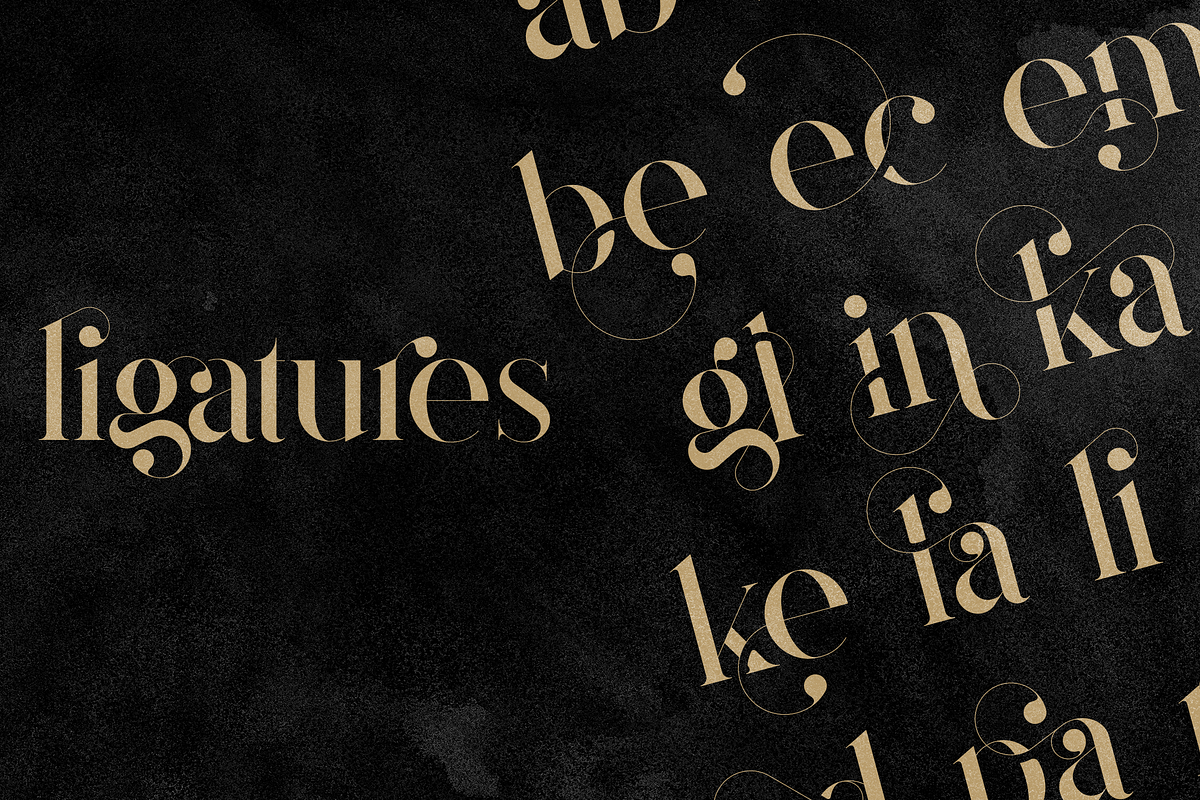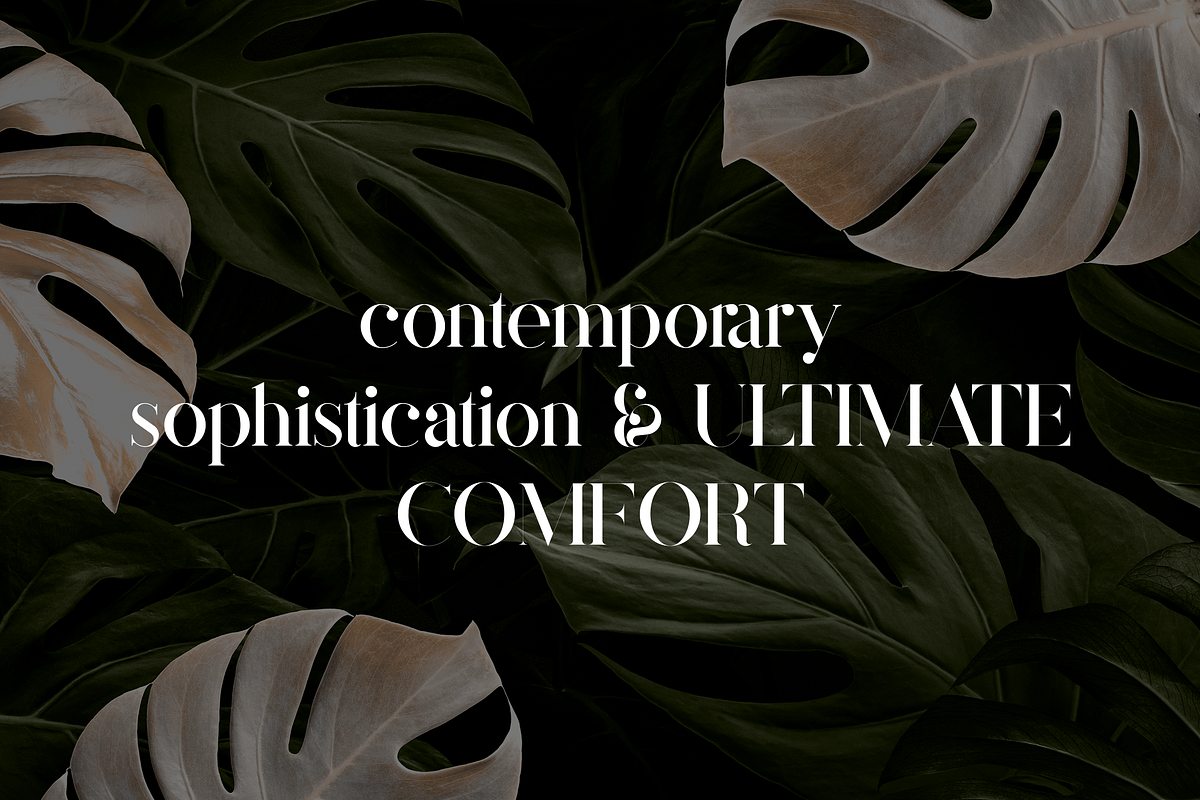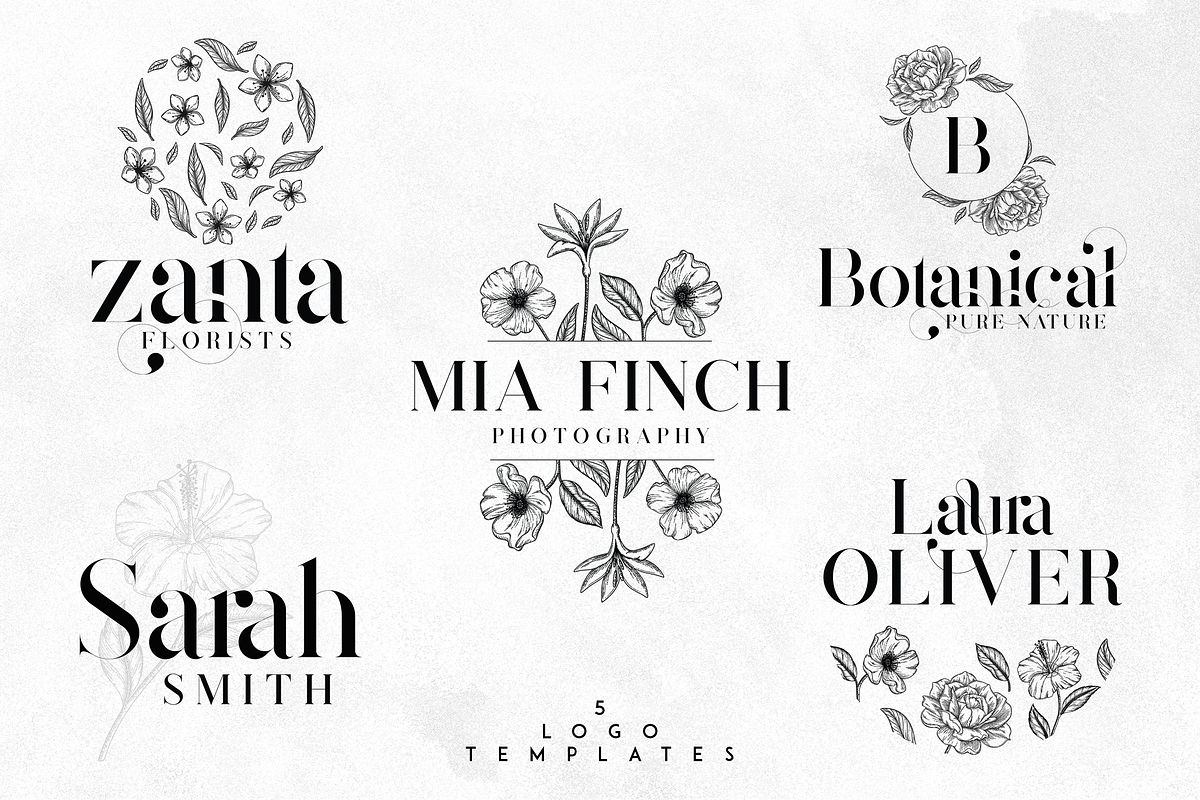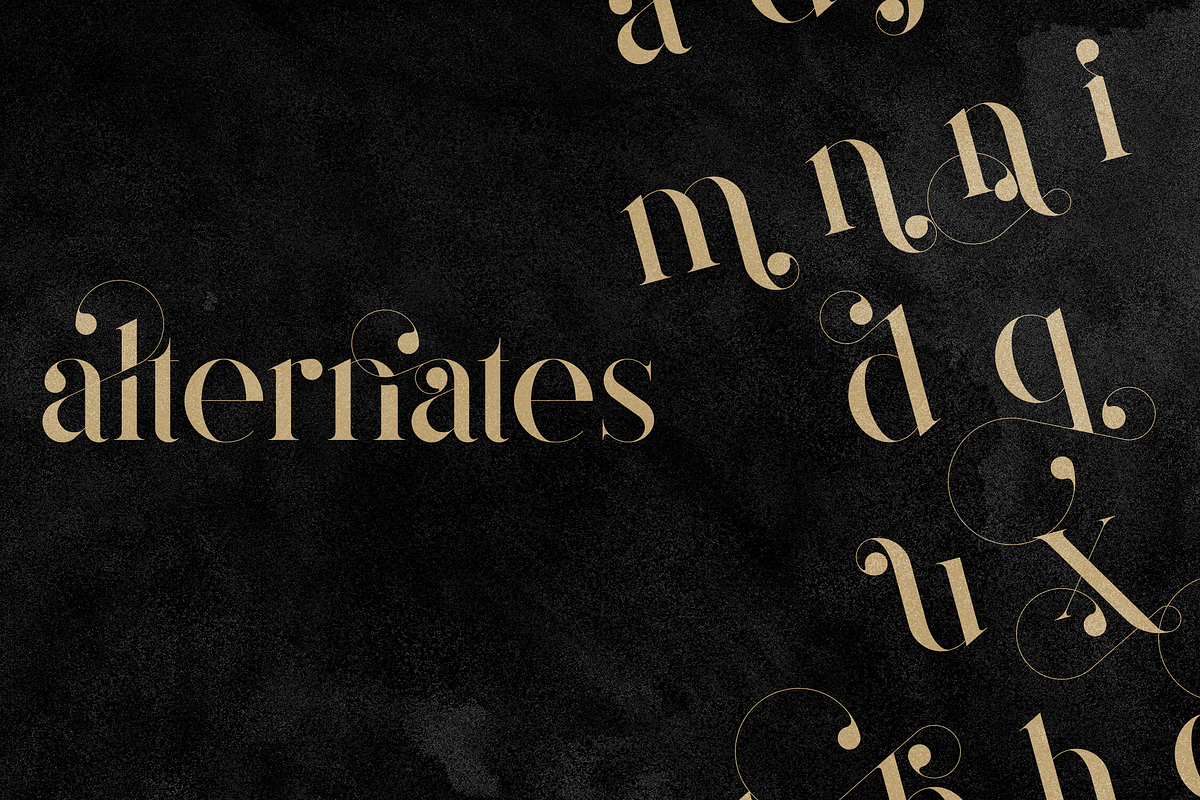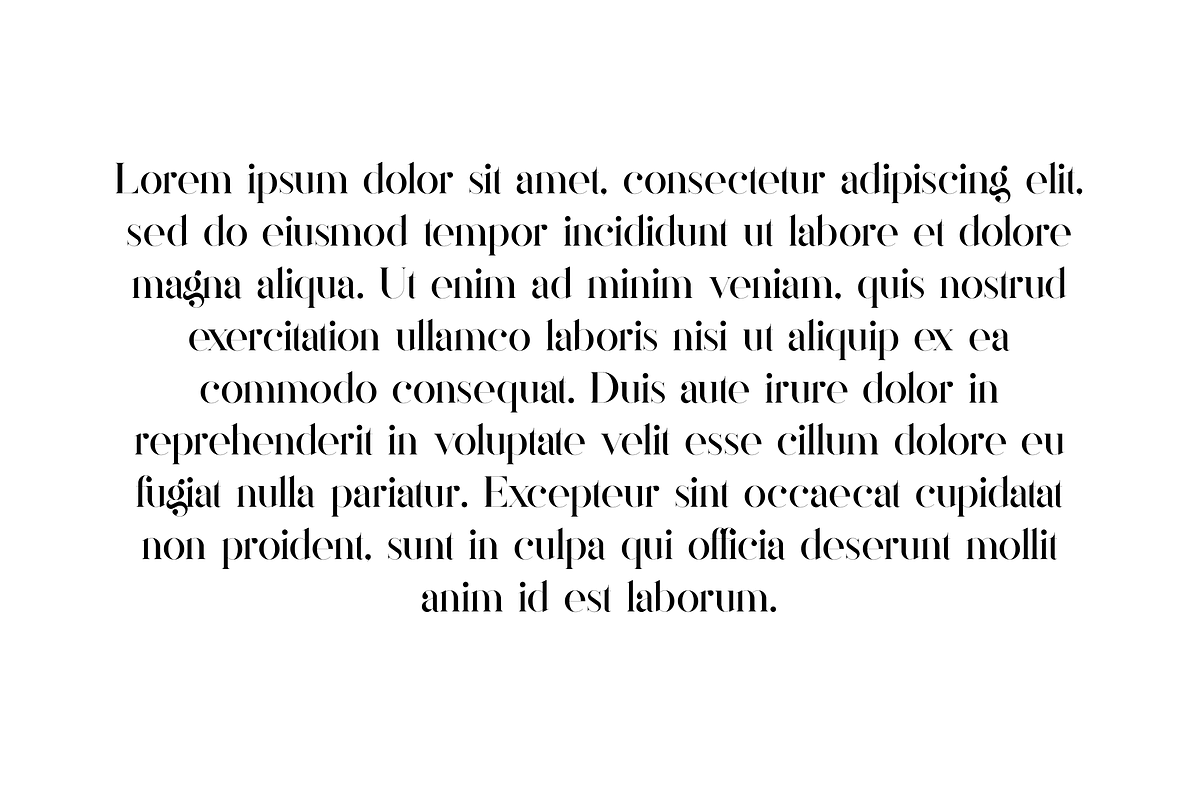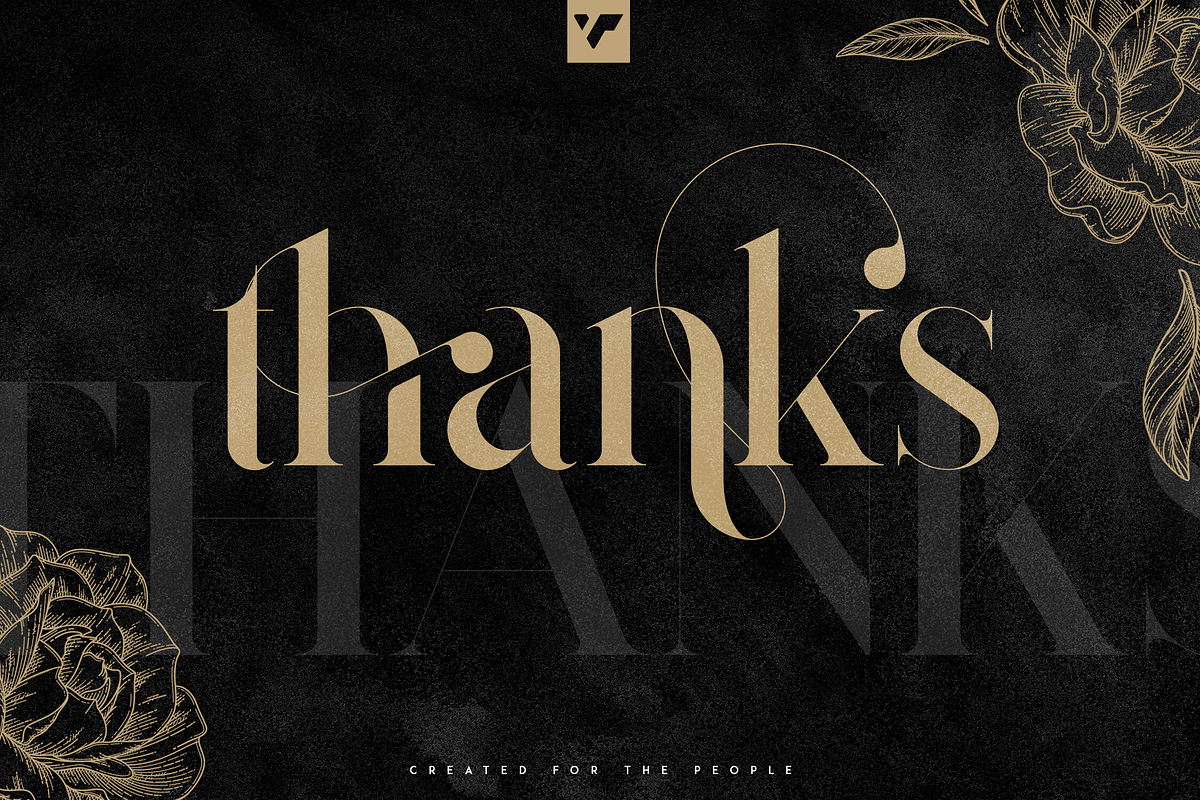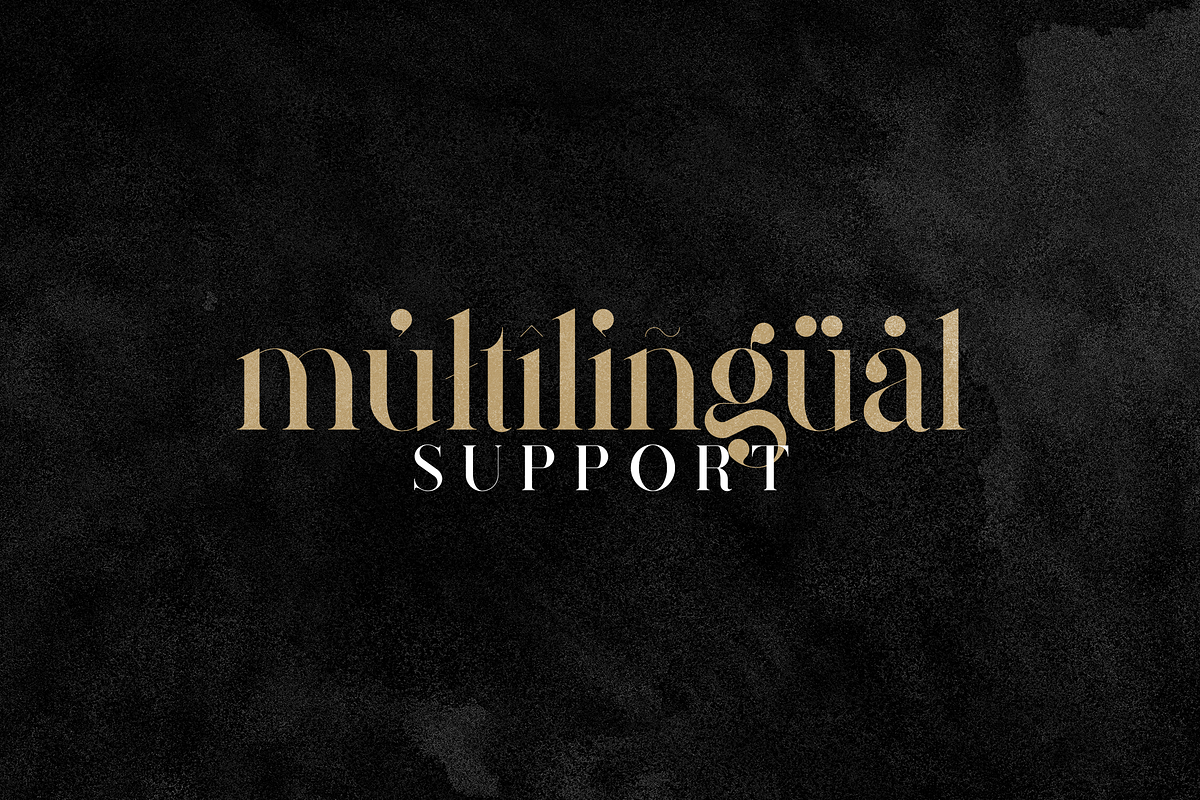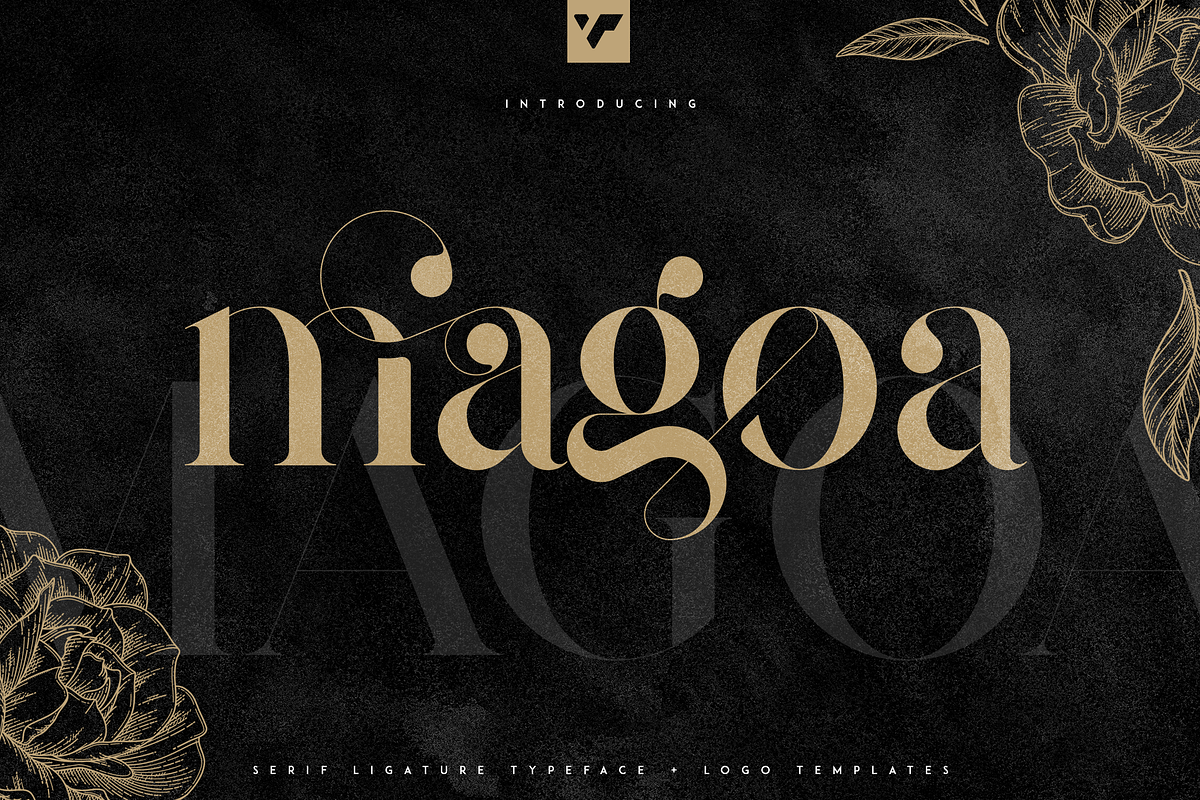
Magoa - Serif Ligature Typeface
Introducing Magoa Serif Ligature Typeface - 3 fonts + 5 logo templates
Magoa is feminine, vintage typeface with 3 fonts loaded with ligature glyphs, alternates and multilingual support to enchant your next project. Added and 5 logo templates. Very versatile fonts that works great in large and small sizes.
Magoa is perfect for branding projects, home-ware designs, product packaging, magazine headers - or simply as a stylish text overlay to any background image.
- Uppercase, lowercase, numeral, punctuation & Symbol
- Light
- Bold
- ligature glyphs
- alternates